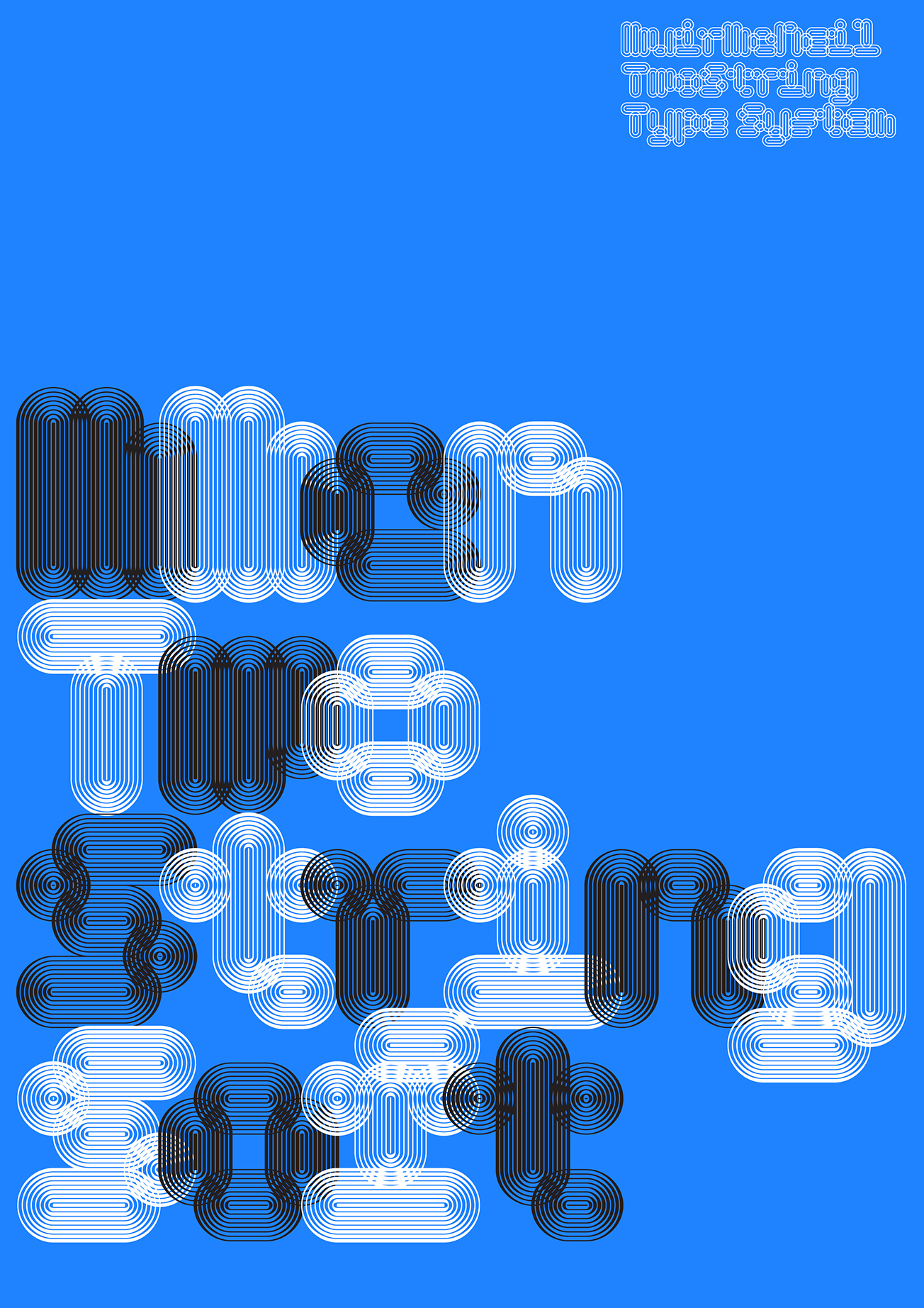
TwoString is a multilinear geometric type family that is part of MuirMcNeil’s extensive Two System collection.
All of the Two System typefaces are modular geometric designs that are intended to work together in two or more layers. The weights, contours and spacing of all typefaces in the system are designed to map perfectly onto one another, offering a huge range of visual possibilities when overlayed.
Working with page layout, bitmap or vector design software, users can apply selected styles to letterforms and background panels either in precisely interlocking layers or in calibrated offsets, applying outlines, tints, colours, textures, patterns and transparencies as appropriate.